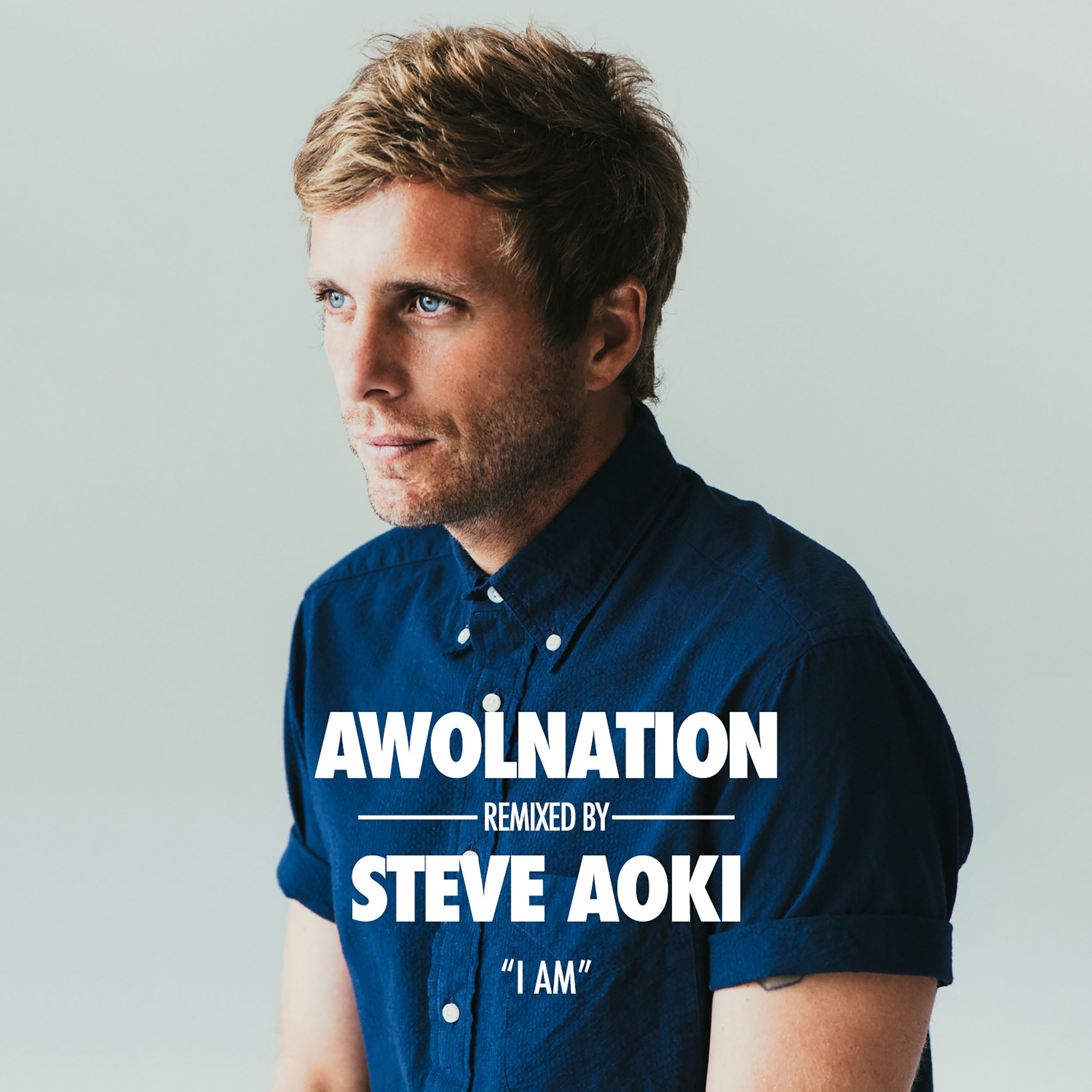
Awolnation - I Am (Steve Aoki Remix) single cover (2015)
That condensed font familiar to me for "Remix By" & "I Am". And "AWOLNATION" & "STEVE AOKI" looks kinda similar to Filmotype Flyer
It’s
Futura Condensed
in Light and
Extra Bold
weights.